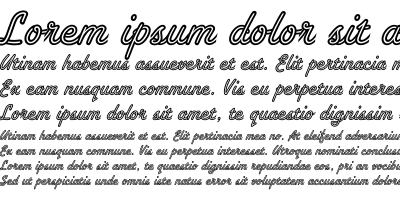
Purple Line Free Download
Purple Line Font Free Download
For those seeking a stylish and modern typeface with a touch of artistic flair, the Purple Line Font Free Download is a fantastic choice. With its smooth curves and sleek lines, Purple Line Font brings a sense of creativity and sophistication to any project. It's perfect for branding, editorial designs, social media posts, invitations, and trendy marketing materials that require a fresh and contemporary look.
Purple Line Font is designed to balance visual elegance with functionality. Its clear letterforms ensure excellent readability across different platforms, whether you’re designing for print or digital media. The playful yet refined character of this font makes it a favorite among designers who want to create memorable and eye-catching work.
Elevate your designs with the unique charm of Purple Line Font. Download it today for free and see how it can transform your creative projects into stunning visual experiences. Whether you're working on a branding campaign, a fashion magazine layout, or a stylish blog, Purple Line Font will help you stand out and make a lasting impression.